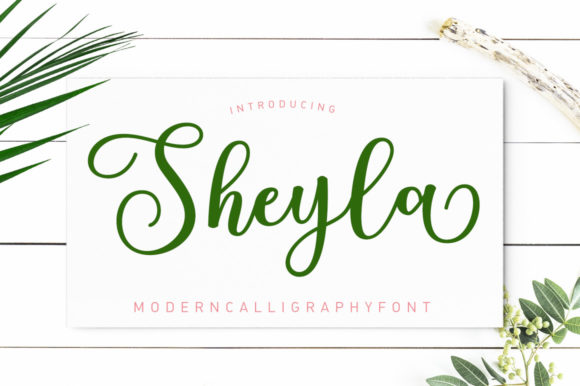
Behold, Sheyla Script - an enchanting script font that will dance its way into your heart and captivate your audience. Created by the talented gloow studio, this font is a symphony of elegance and playfulness, its characters dancing merrily along the baseline.
With Sheyla Script, you'll have the power to transform your culinary creations into mouthwatering masterpieces. This font is the perfect companion for food websites, restaurant menus, and any design project where you want to evoke a sense of warmth, delight, and indulgence.
Imagine the allure of a restaurant menu adorned with Sheyla Script's graceful letters, inviting diners to embark on a culinary journey like no other. The font's playful personality will add a touch of whimsy to your food packaging, creating an unforgettable experience for your customers.
But Sheyla Script's charm extends far beyond the culinary world. Its versatility shines in logos, branding, and social media graphics, adding a touch of magic to every project. Let Sheyla Script ignite your creativity and transport your designs to new heights of visual appeal.
With its PUA encoding, unleashing the full potential of Sheyla Script is a breeze. Access all the glyphs and swashes effortlessly, allowing you to add intricate details and flourishes to your designs. Let your imagination run wild and create something truly extraordinary.
Sheyla Script is not just a font; it's an experience. It's a way to infuse your designs with personality, charm, and a dash of irresistible charm. It's the key to unlocking a world where your creativity knows no bounds.